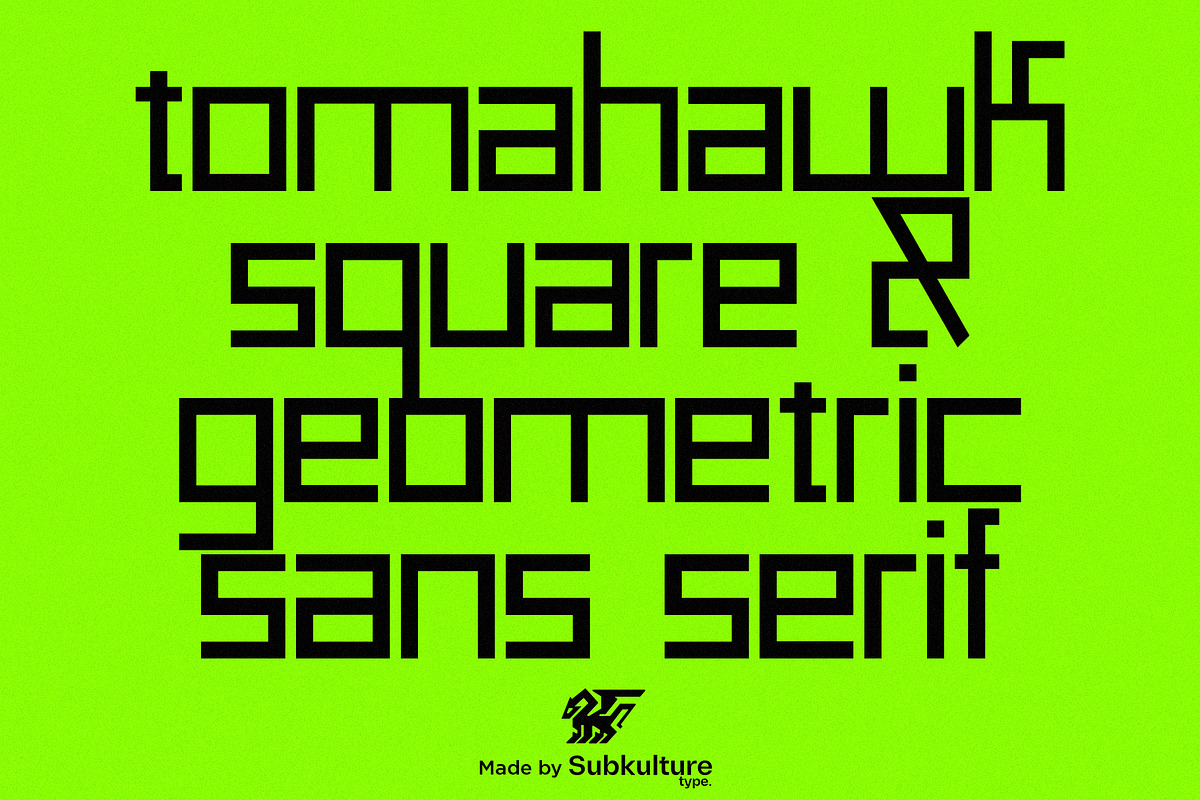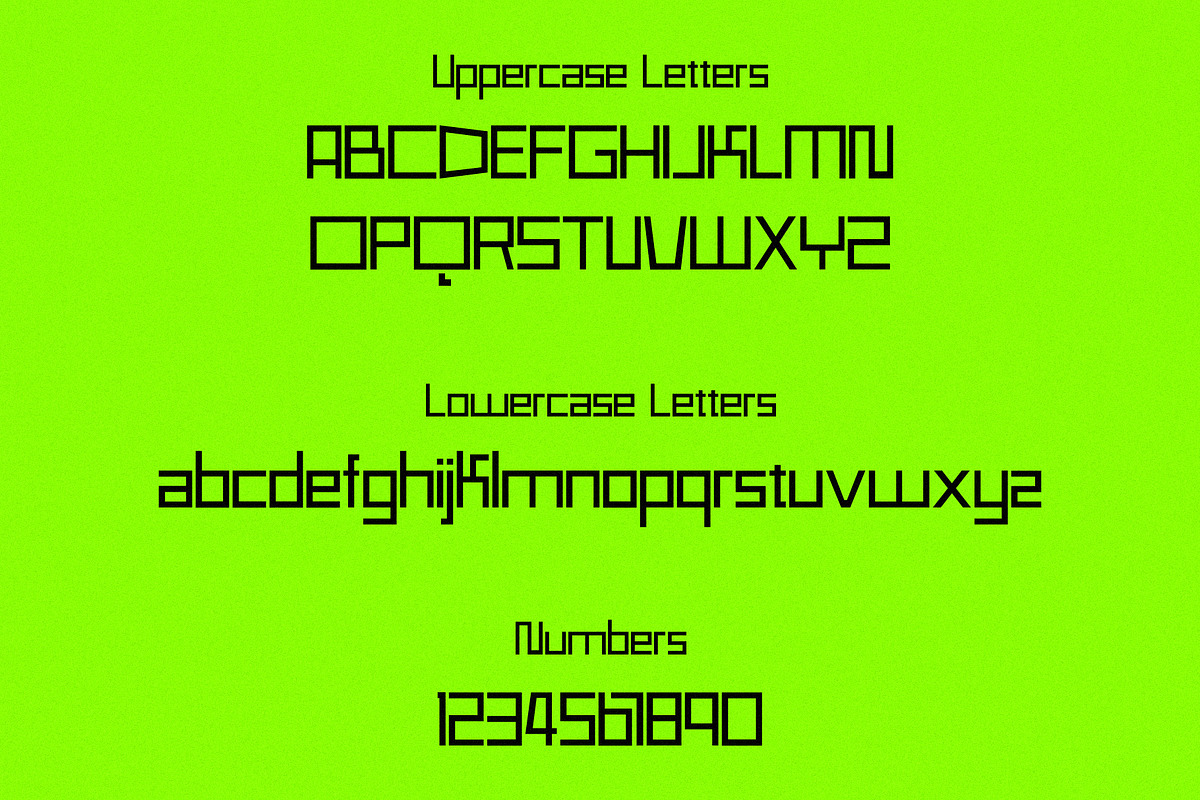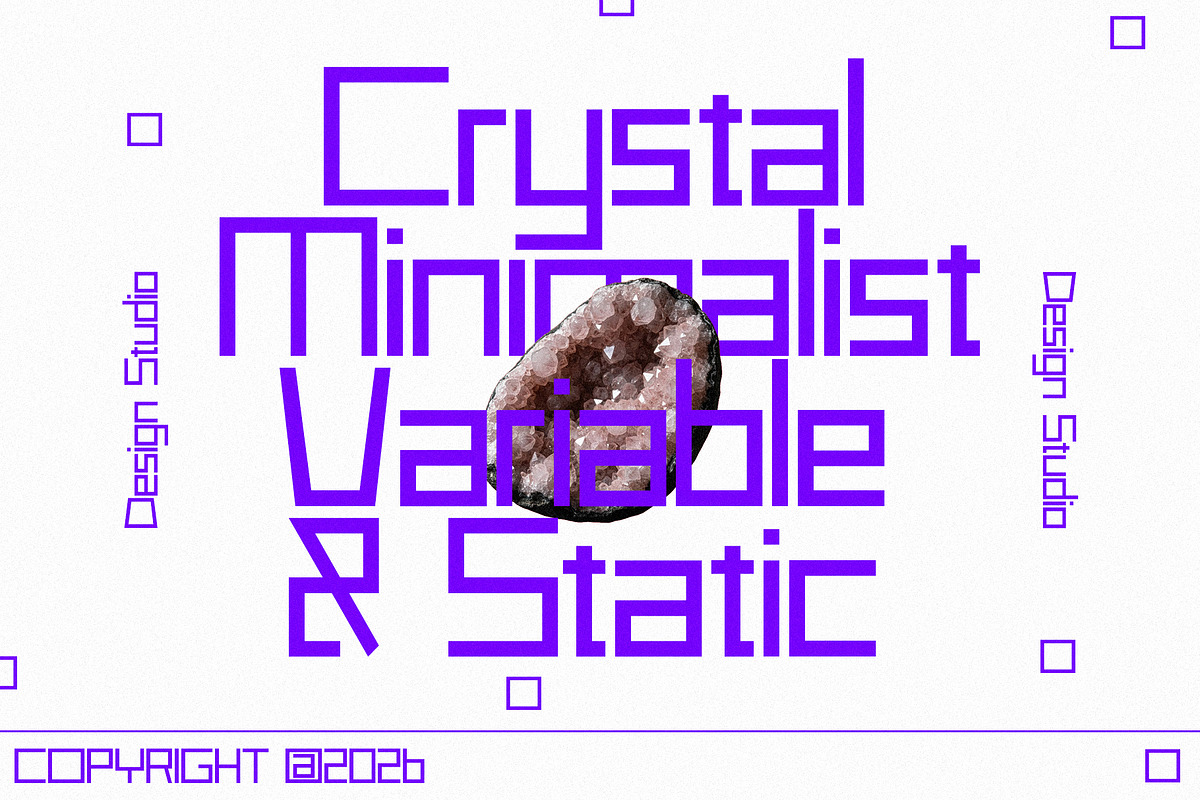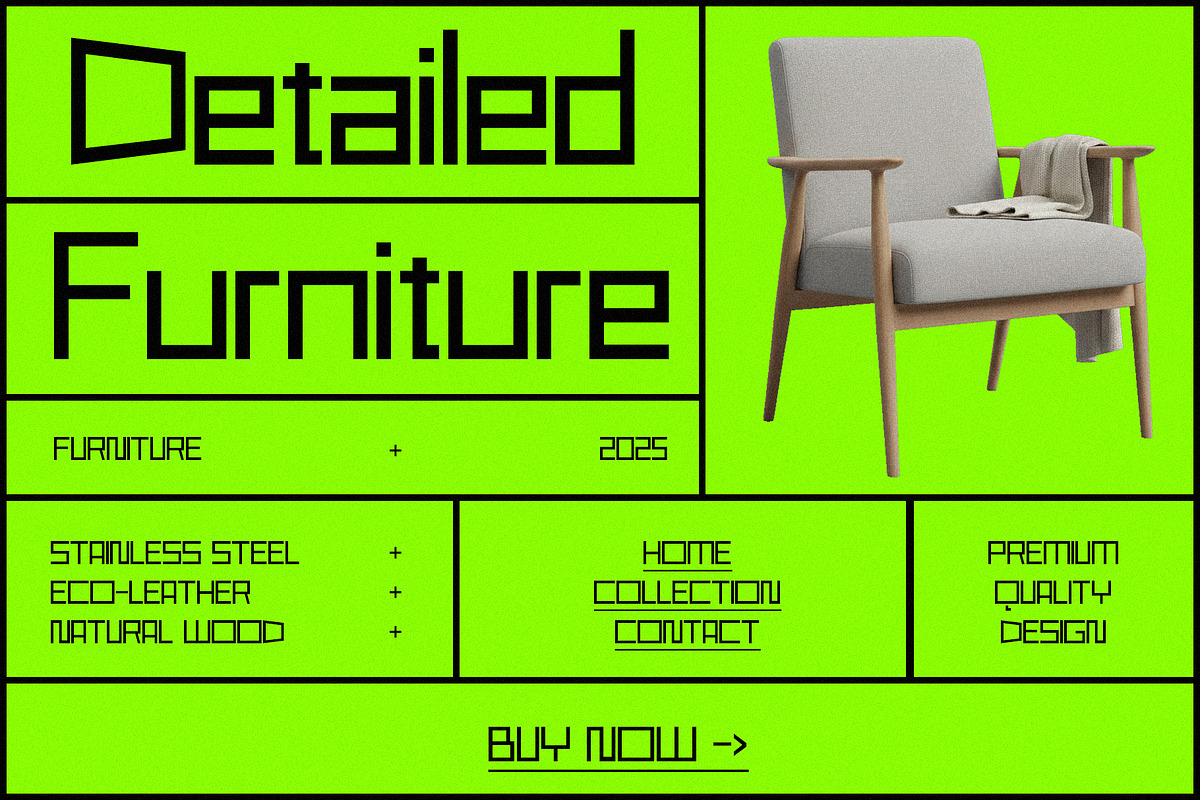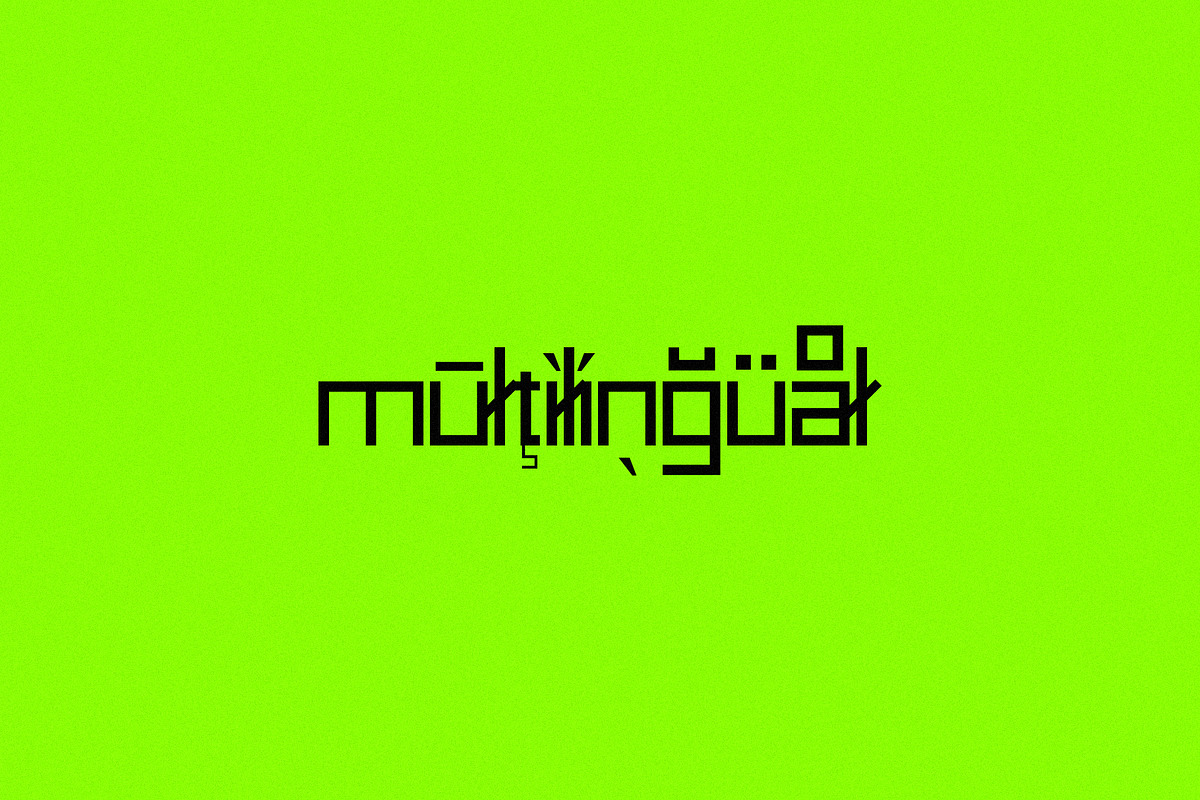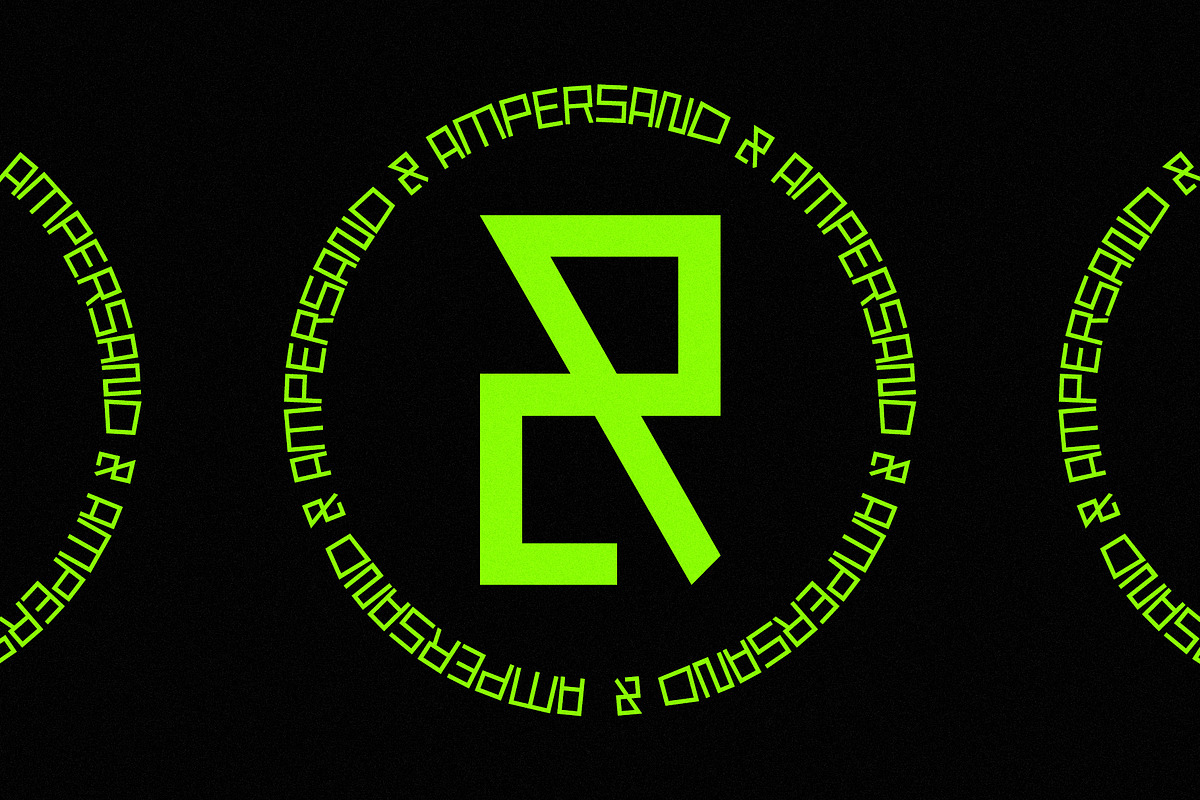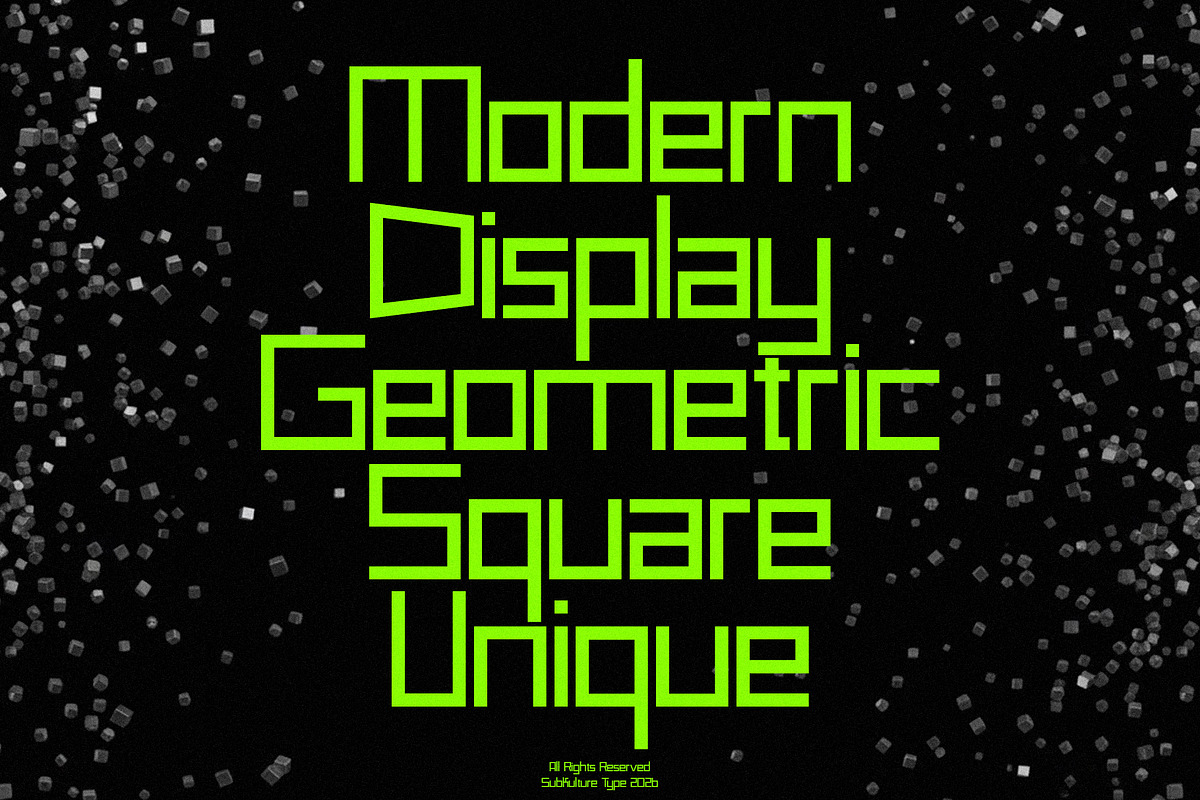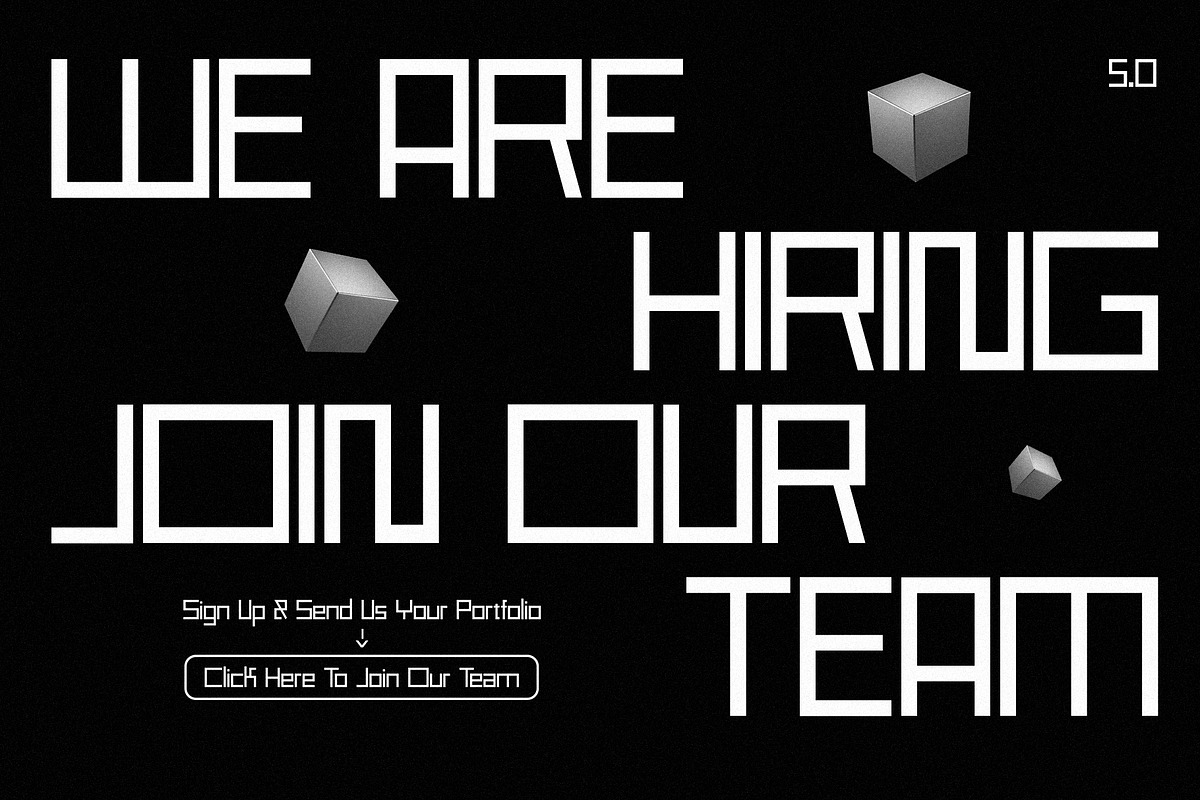
Tomahawk - Geometric & Square Sans
Tomahawk Geometric & Square Sans Serif takes the original Tomahawk and gives it a fresh, modern twist. With its sharp, geometric shapes and clean, square lines, this updated version feels both contemporary and timeless. It keeps the essence of the classic design while offering a more refined, professional look that’s perfect for today’s branding and design needs. Whether you're working on a corporate identity or a sleek design project, it brings both strength and elegance, effortlessly bridging the past and the future.
Tomahawk features uppercase & lowercase letters, numbers & symbols, multilingual support, ligatures & over 300+ glyphs.